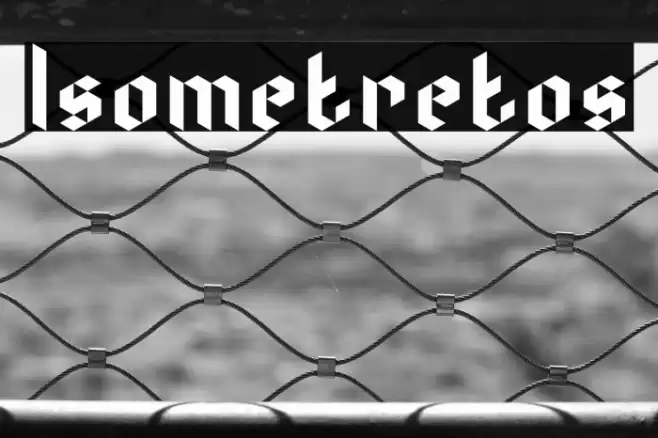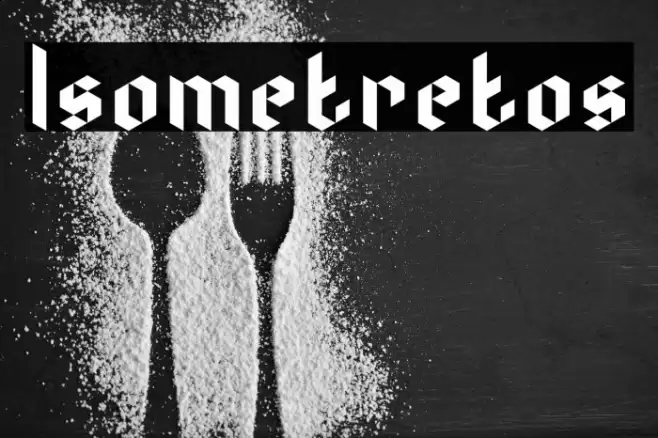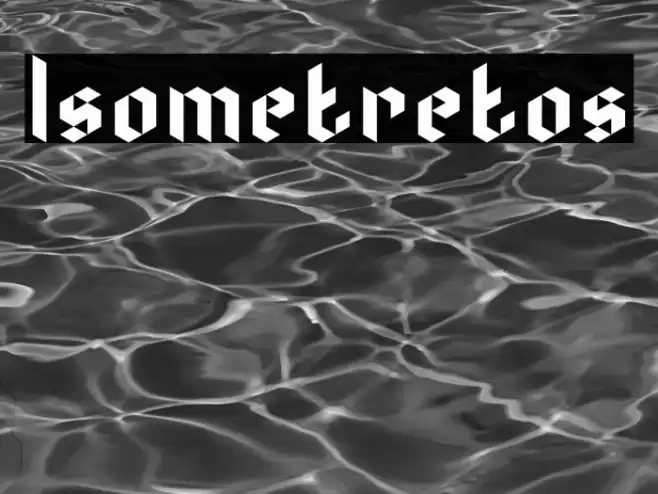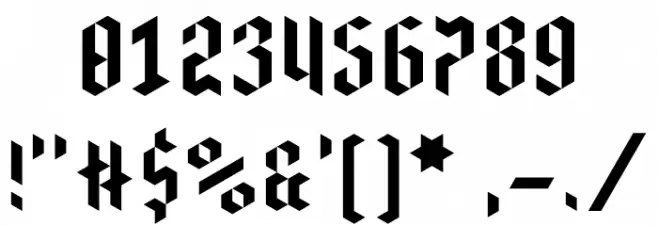
Isometretos Font
Isometretos Description
This font features a bold and angular design, reminiscent of traditional blackletter styles but with a modern twist. The characters are constructed with sharp, geometric edges, giving them a strong and impactful appearance. The uppercase and lowercase letters maintain a consistent style, with the lowercase being slightly more condensed. Numbers and special characters follow the same angular theme, ensuring uniformity across all glyphs. This font's unique style makes it stand out, offering a blend of historical influence and contemporary design.
A bold, angular font with a modern blackletter style from Regular fonts.
- Proposed Projects: Ideal for branding, posters, album covers, and any project requiring a bold, impactful typeface.